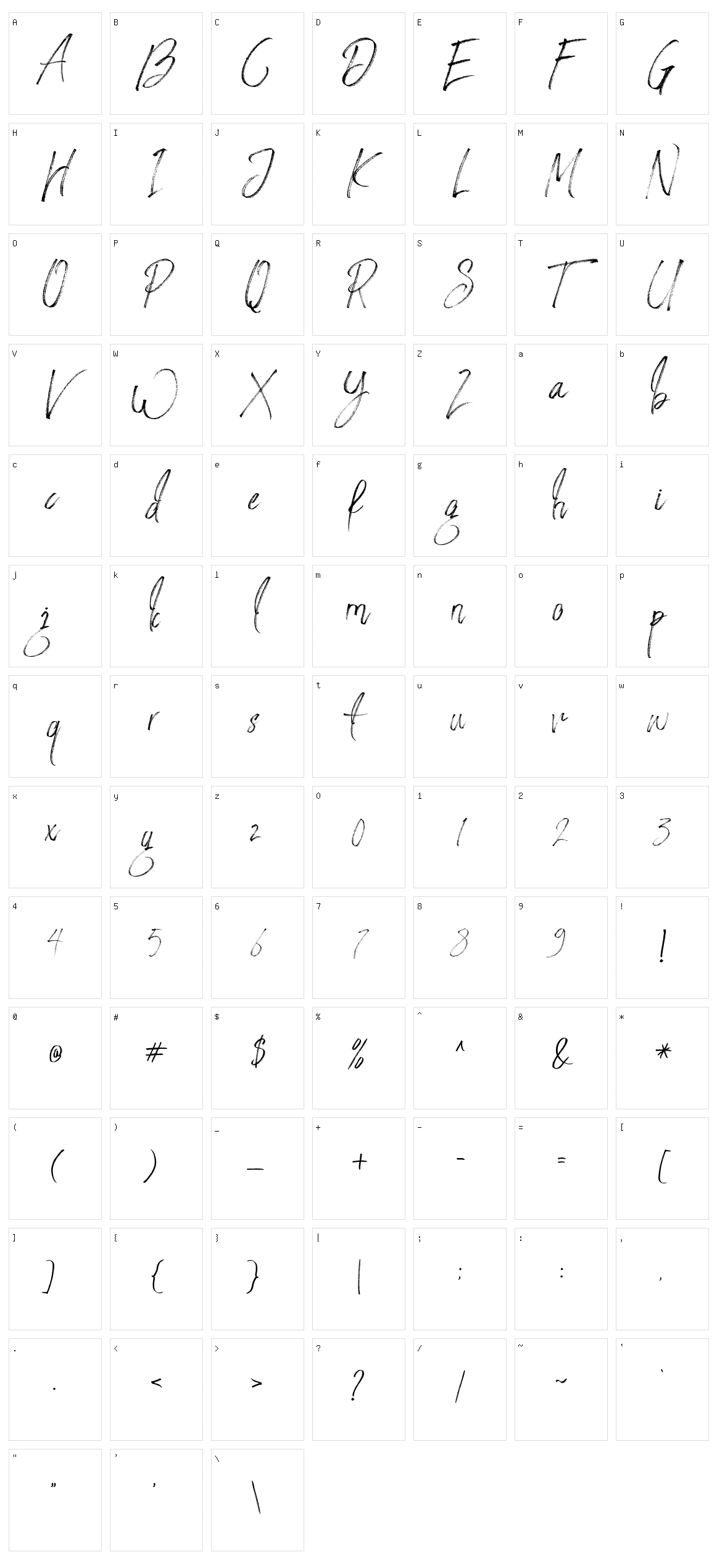
Strongloves
Description: The free font Strongloves is carefully designed by FHFont, showcasing a thoughtful balance of creativity and usability and falls under the Script font style. When you download the ZIP file, it contains only 1455.62 KB of font files, making it lightweight and quick to download. Please review the license details below to understand permitted usage and distribution rights. If license information is not available, we recommend using this font for personal projects only or contacting the author directly for commercial usage permissions.